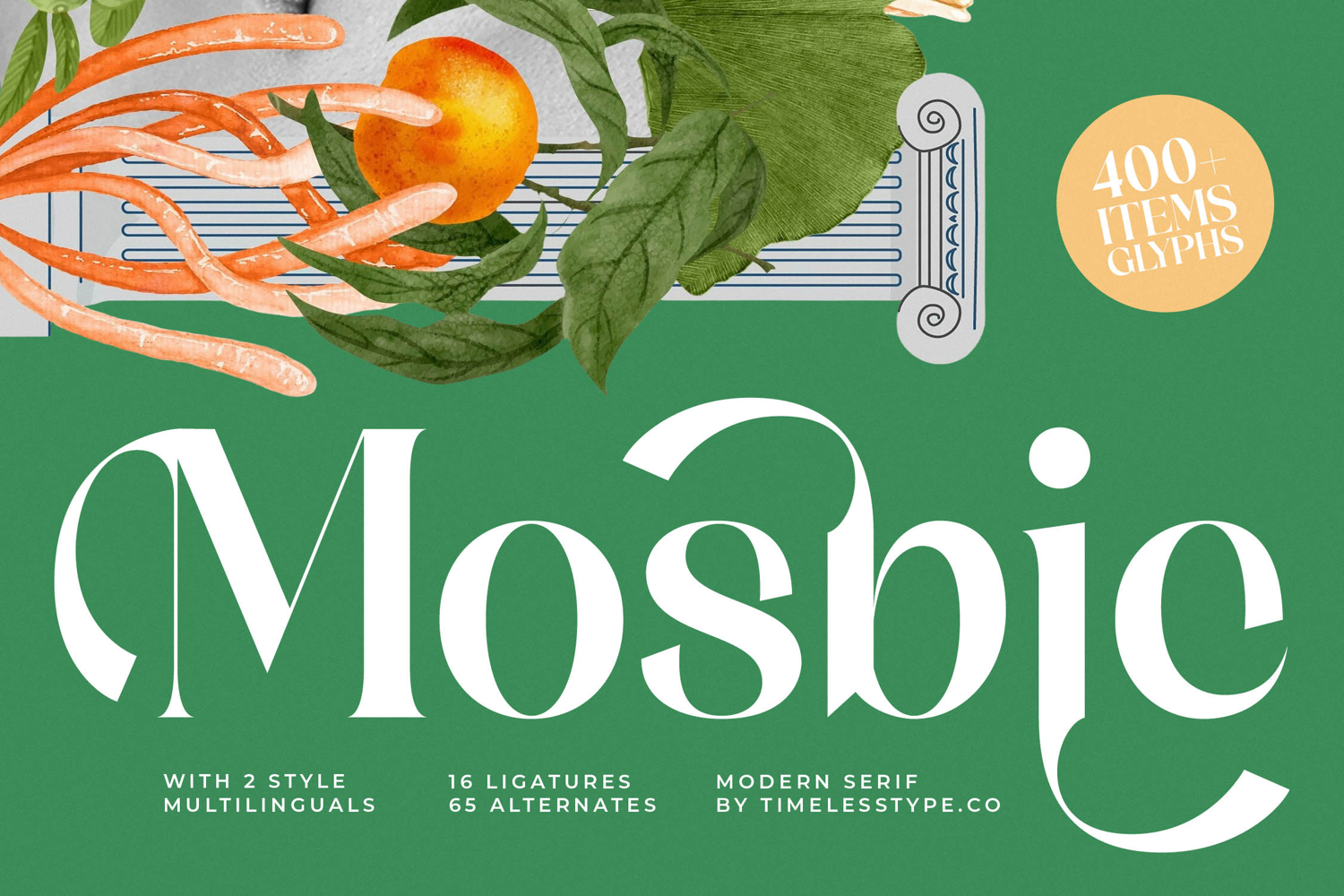
Mosbic - Modern Serif Font
Elevate your design aesthetic with the captivating presence of Mosbic - Modern Serif Font. This typeface masterfully blends traditional serif elegance with contemporary fluidity, offering a high-contrast visual experience that demands attention. Its sweeping curves and dramatic terminals create an unforgettable impression, perfect for designs that require both sophistication and bold character. Available in two distinct styles, Mosbic - Modern Serif Font provides the foundational tools necessary for truly distinctive typographic branding.
Unlock unparalleled creative freedom through an expansive OpenType feature set. With over 400 total glyph items, including 16 unique ligatures and 65 stylistic alternates, Mosbic - Modern Serif Font allows for complex and customized headline construction. These robust features enable designers to tailor every word, transforming static text into dynamic artwork. This adaptability ensures the font maintains maximum visual interest across varying scales and mediums, certifying its position as an essential versatile design asset.
Future-proof your brand identity for global market expansion. With its extensive multilingual support, Mosbic - Modern Serif Font adapts seamlessly across global markets, making it incredibly versatile for international projects. This comprehensive language coverage ensures that your message retains its signature elegance and professional integrity whether serving European, North American, or other international clientele, guaranteeing reliable typographic performance worldwide.